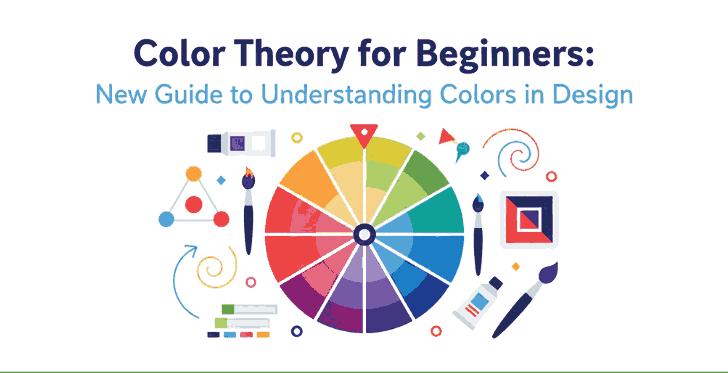
1. Introduction: Why Color Theory Matters in Design
Color Theory for Beginners is one of the most powerful tools in design. It influences perception, evokes emotion, and helps convey brand identity. For beginners, understanding color theory is the first step to mastering visual communication. Whether you’re designing logos, websites, or typography art, color choices determine how your message resonates with the audience.
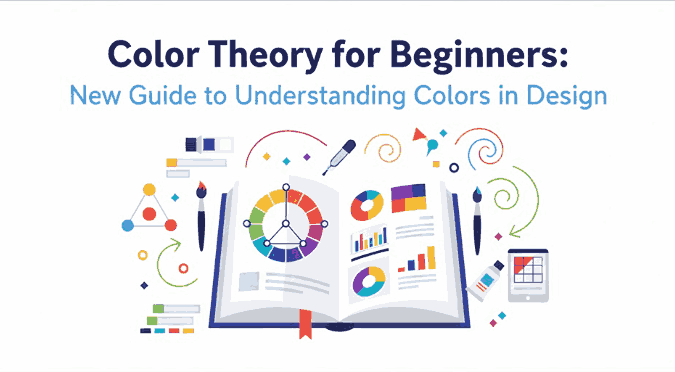
2. The Basics of Color Theory for Beginners
Color theory is a framework that explains how colors interact with one another. It combines artistic principles and scientific understanding to help designers create visually balanced and appealing compositions.
The Color Wheel
At the heart of color theory lies the color wheel, a circular chart that shows the relationships between colors. It includes primary, secondary, and tertiary colors.
- Primary colors: Red, Blue, and Yellow — cannot be created by mixing other colors.
- Secondary colors: Green, Orange, and Purple — formed by mixing two primary colors.
- Tertiary colors: Created by mixing a primary and a secondary color (e.g., Blue-Green, Red-Orange).
This wheel helps designers easily identify complementary or harmonious color combinations.
3. Understanding Color Theory for Beginners Harmony
Color harmony is the visual balance achieved when colors are combined effectively. It ensures your designs feel cohesive and pleasing to the eye.
Complementary Color Theory for Beginners
Colors that sit opposite each other on the color wheel (e.g., blue and orange). This combination creates strong contrast and high visual energy.
Analogous Color Theory for Beginners
These are colors that sit next to each other (e.g., yellow, yellow-green, and green). They produce a smooth and harmonious effect—perfect for calm and natural designs.
Triadic and Monochromatic Schemes
Triadic schemes use three colors equally spaced around the wheel, while monochromatic schemes use variations of one hue with different values and saturations. Triadic palettes add vibrancy, while monochromatic palettes provide simplicity and elegance.
4. The Psychology of Color Theory for Beginners
Every color carries emotional and psychological associations. Here’s a quick guide to help beginners understand the psychological impact of colors:
- Red: Passion, energy, and urgency.
- Blue: Calmness, trust, and professionalism.
- Yellow: Optimism and creativity.
- Green: Nature, balance, and growth.
- Purple: Luxury and sophistication.
- Black & White: Simplicity and contrast—used to create clarity and focus.
Knowing these meanings helps designers choose colors that align with their brand’s message or design goal.
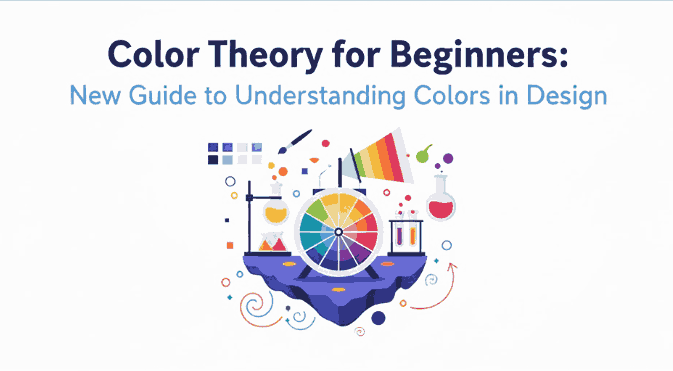
5. How to Choose the Right Color Theory for Beginners
Choosing the perfect color palette can be challenging. Here are some quick tips for beginners:
- Start with your brand personality. Identify your brand’s tone—fun, elegant, minimalist, or bold.
- Use online tools. Platforms like Adobe Color or Coolors help generate color palettes easily.
- Maintain contrast for readability. When designing with fonts or text, ensure high contrast between text and background colors.
- Limit your palette. Three to five colors are usually enough for balanced design.
6. Applying Color Theory in Graphic and Font Design
Fonts and colors go hand in hand. The right combination can make your design stand out, while poor pairing can ruin even the best typography.
For example:
- Warm colors (reds, oranges, yellows) work well with handwritten or bold script fonts, creating energy and excitement.
- Cool colors (blues, greens) match perfectly with modern sans-serif fonts, giving a calm and professional vibe.
When using calligraphy fonts, balance is key — avoid overly bright combinations that can make the text hard to read.
7. Recommended Fonts for Color-Based Design Projects
Here are some beautiful font recommendations from CalligraphyFonts.net that complement your color-based designs perfectly:
- Holters Font – A clean, modern sans-serif perfect for minimalist color palettes and branding.
- Rutinitas Font – A casual handwritten style ideal for creative projects and colorful logos.
- Leathering Font – Elegant and luxurious, perfect for premium product packaging with soft or neutral tones.
- Anthonyela Calligraphy Font – Beautifully flowing calligraphy font that shines in pastel and elegant color schemes.
8. Conclusion
Mastering color theory for beginners is not just about memorizing a color wheel — it’s about understanding how color influences perception and emotion. By applying the right combinations, you can elevate your designs, highlight your message, and attract more attention.